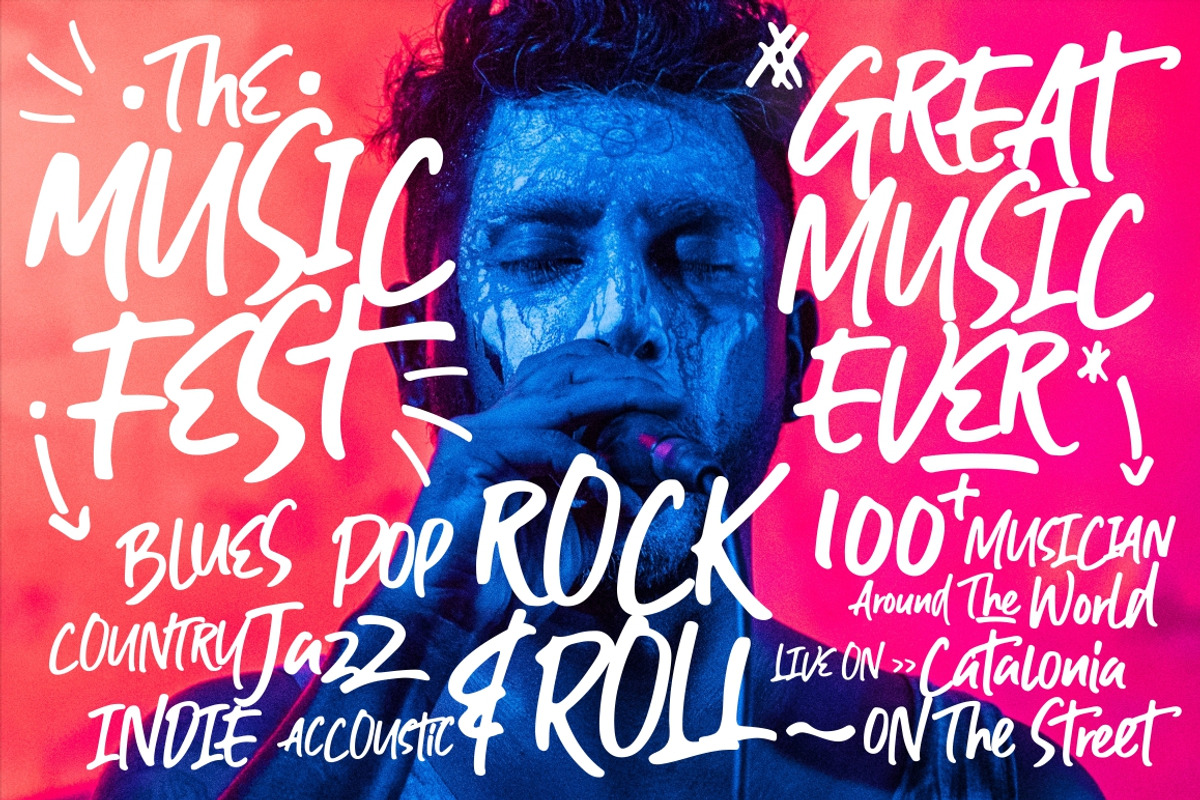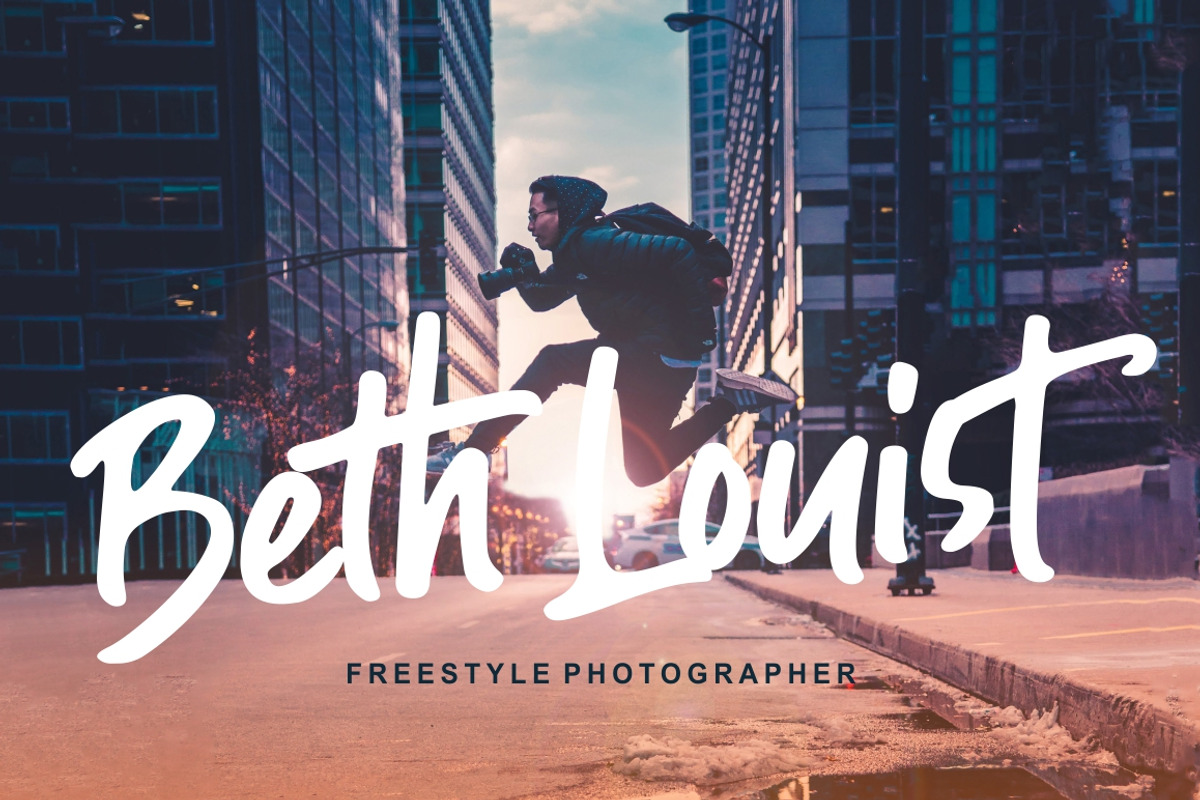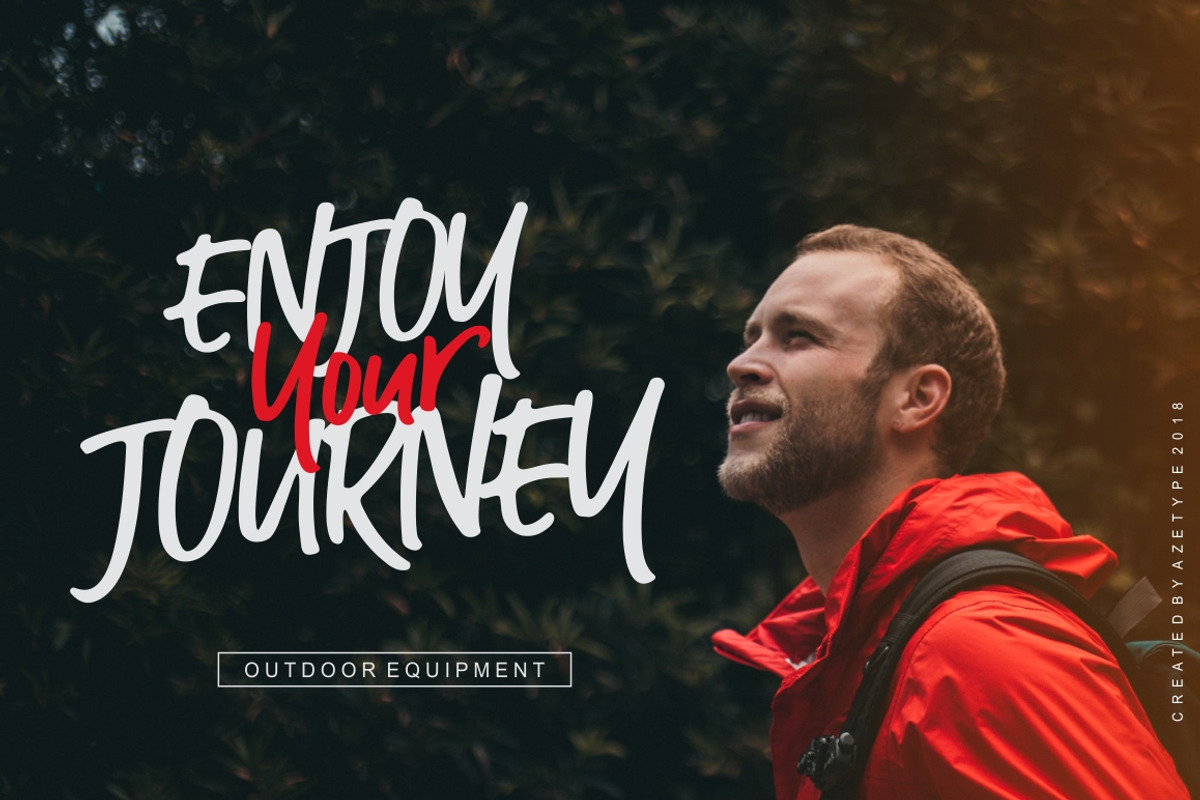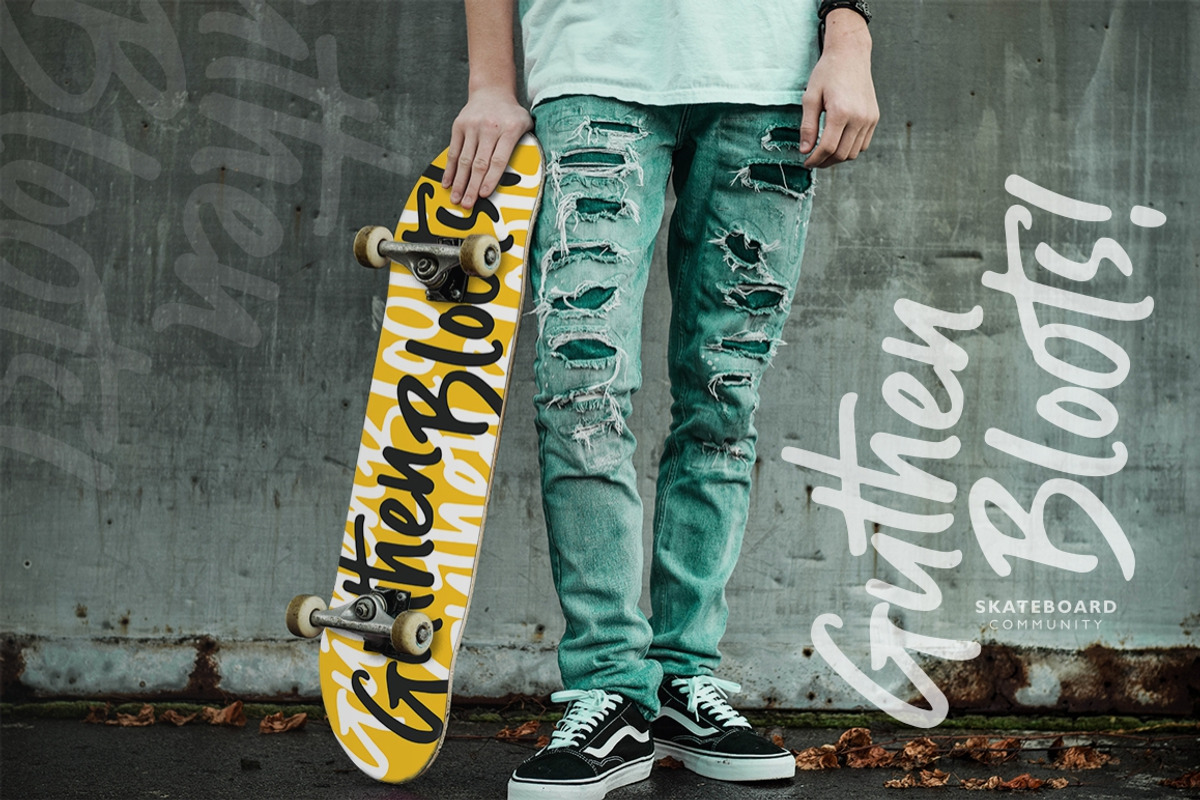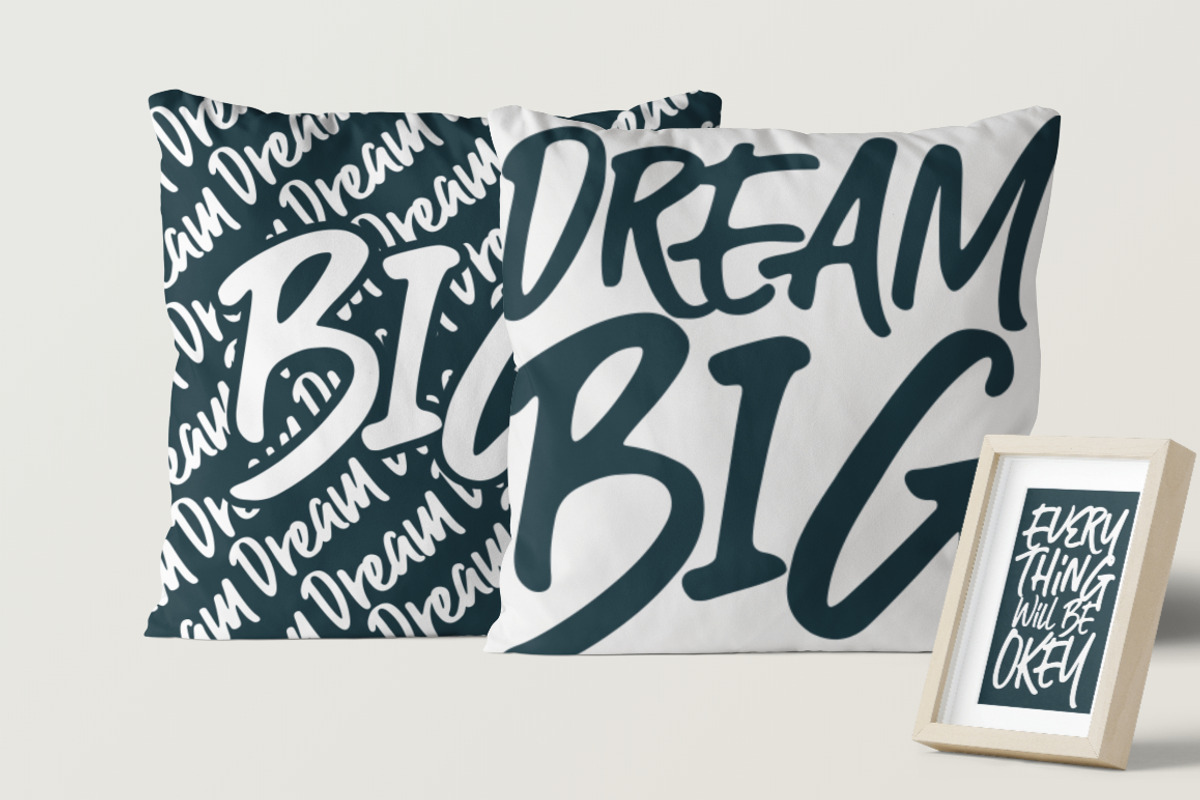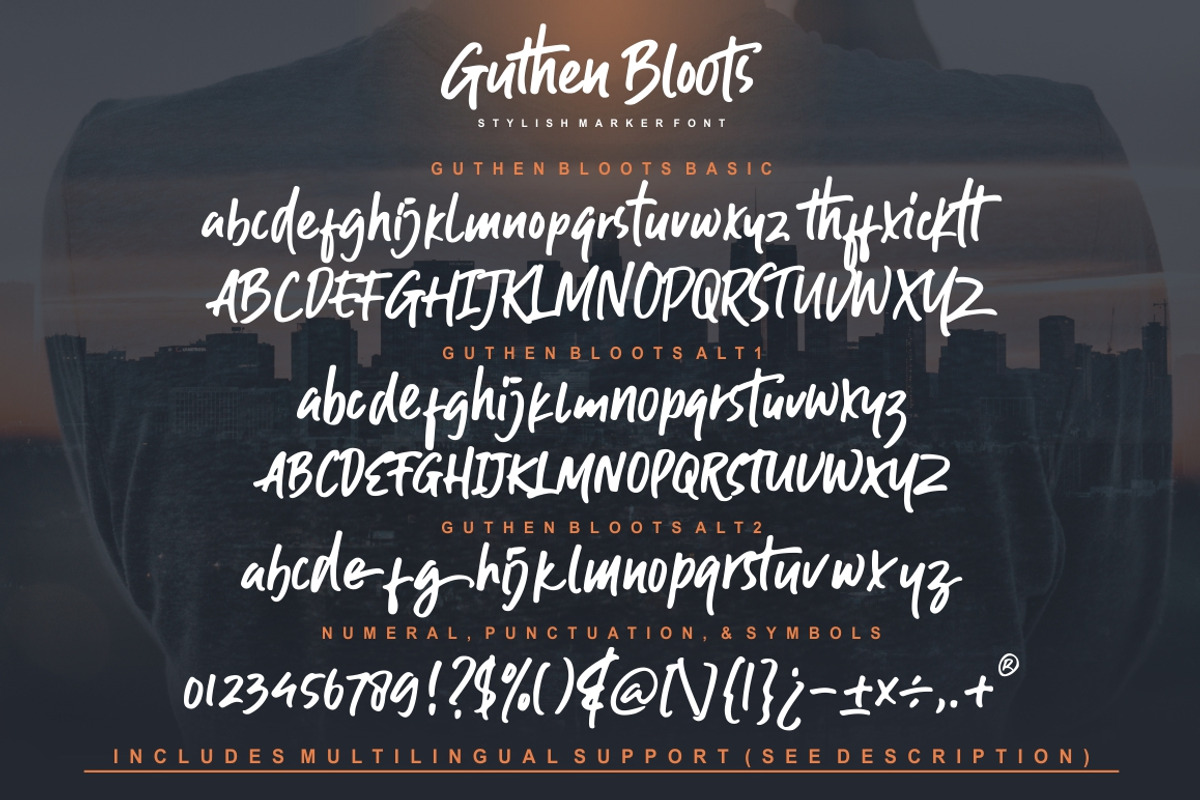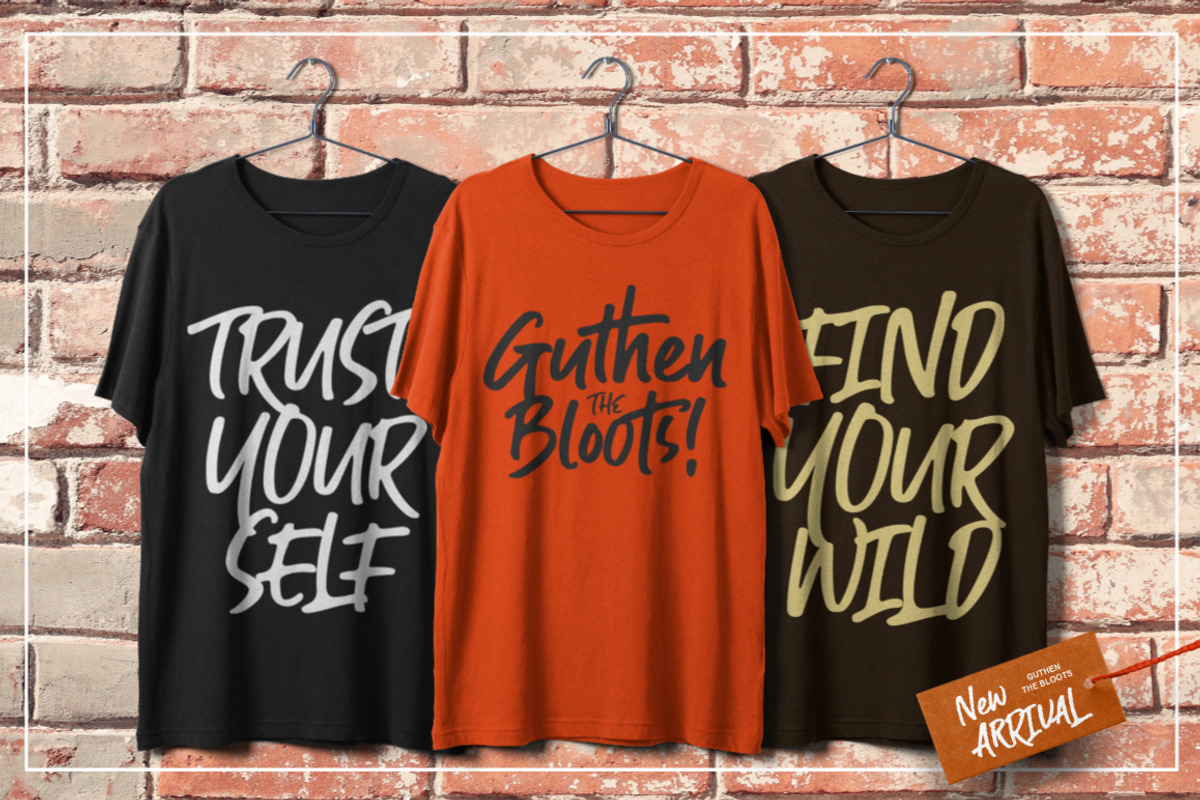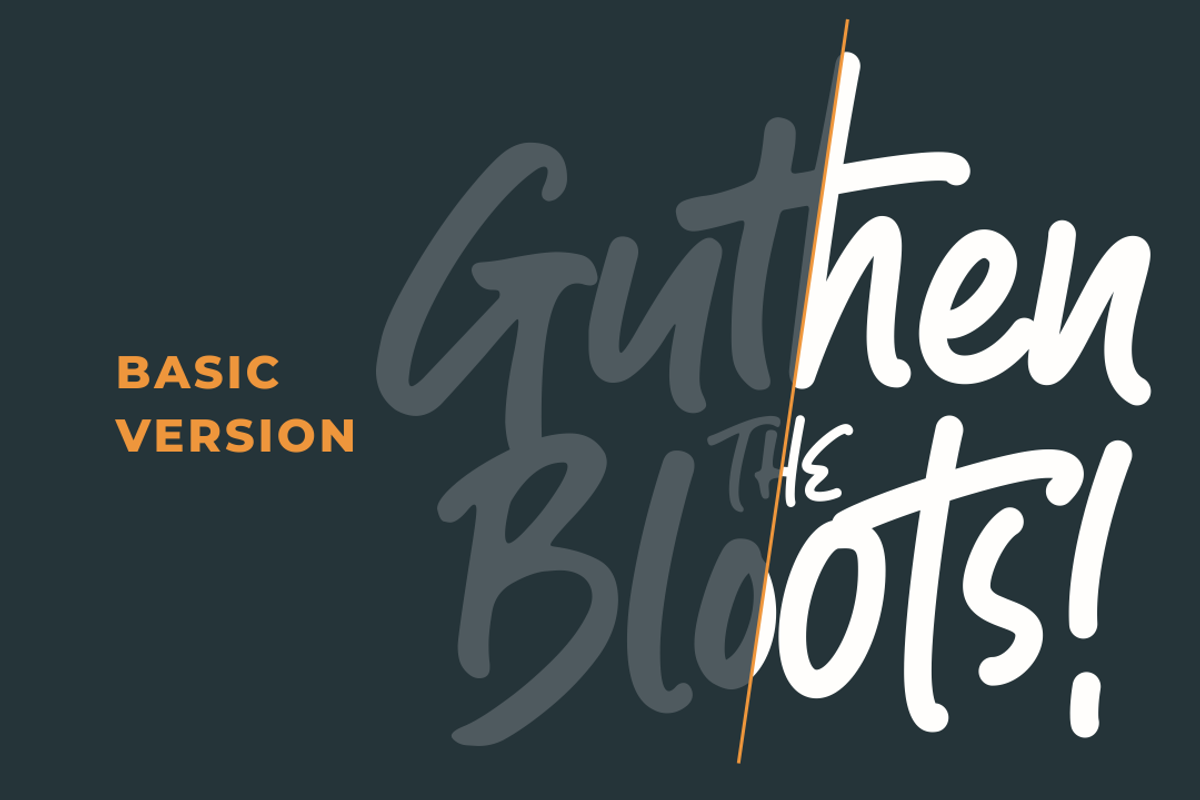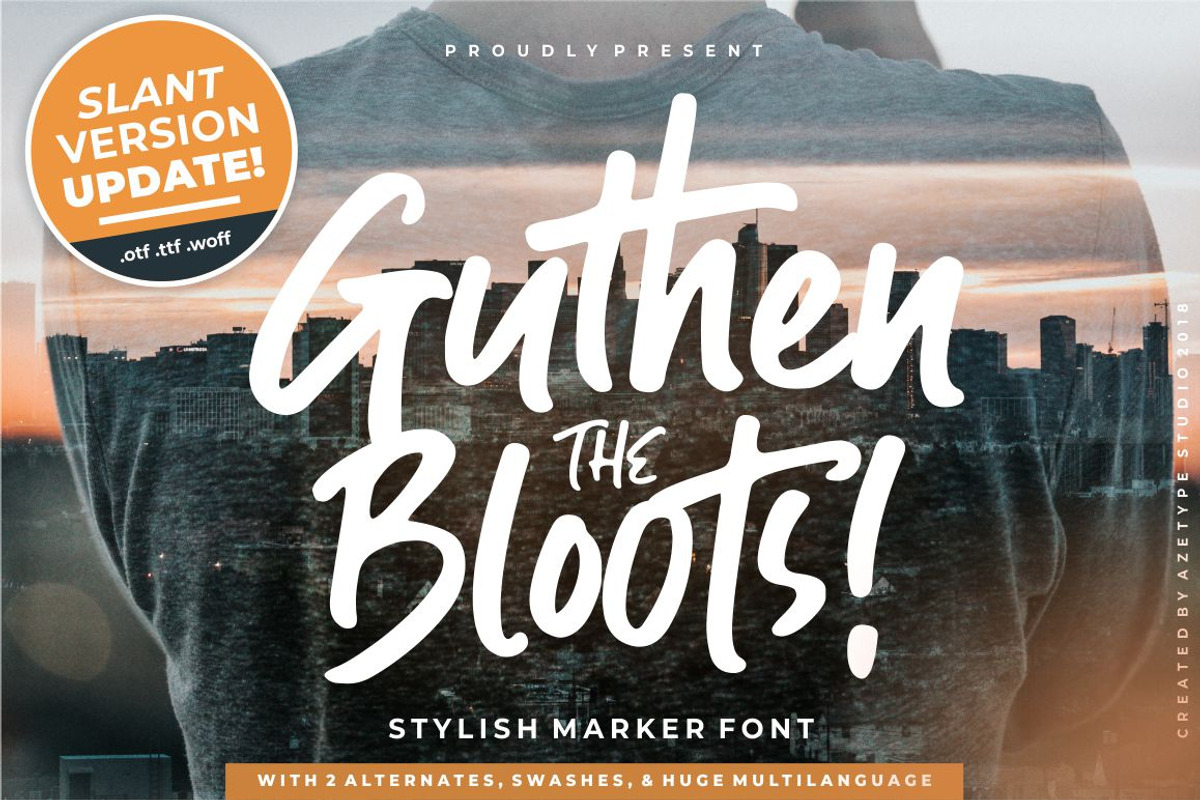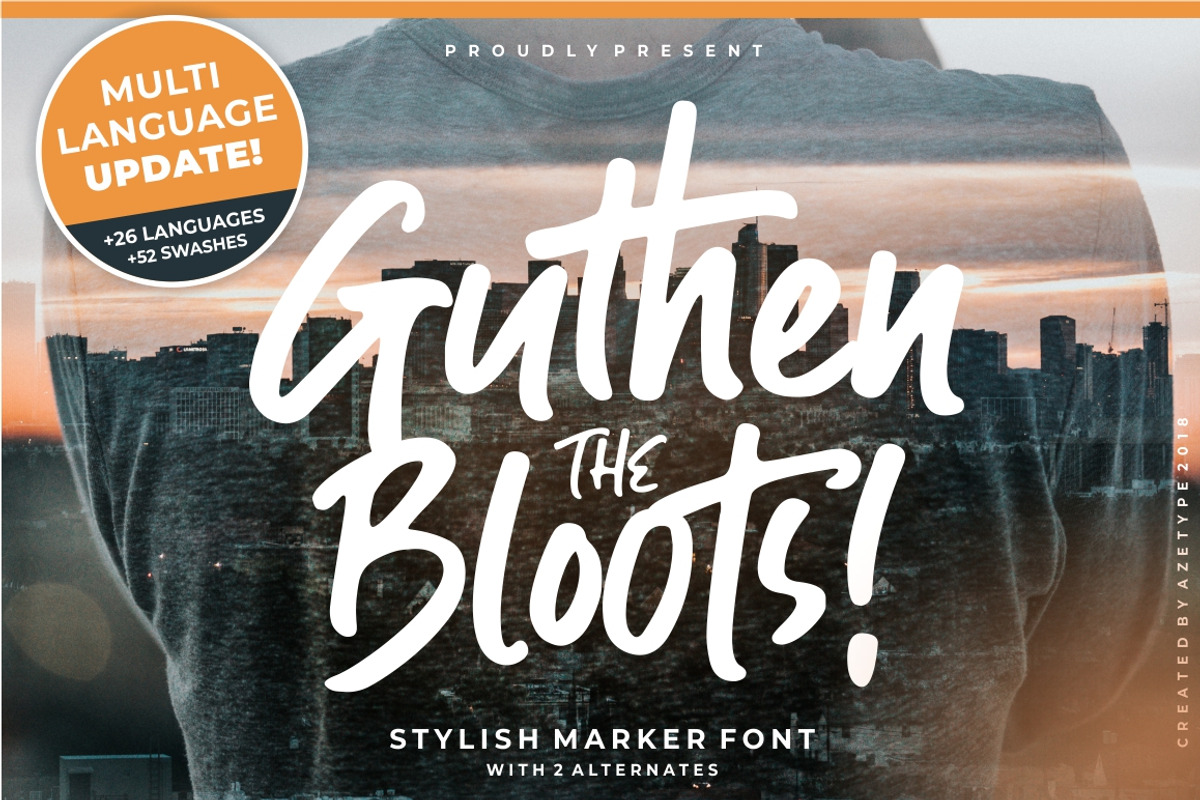
Guthen Bloots
UPDATED: Monoline Version
NEW UPDATE 2 (MARCH 2020): Guthen Bloots Slant Version
Presenting Guthen Bloots! A Smooth Marker Font with two stylish alternates. This font made with the perfect combining of each character. You can type by Mix & Match to get a unique combining. It looks original and can be used for all your project needs. Each glyph has its own uniqueness and when meeting with others will provide dynamic and pleasing proximity. This font can be used at any time and any project. You can see in the presentation picture above, Guthen Bloots looks stylish on design projects.
So, Guthen Bloots can't wait to give its touch to all your design projects such as quotes, poster design, personal branding, promotional materials, logotype, product packaging, etc.
Besides that, Guthen Bloots also has some ligature that gives a surprise when you type certain characters combining. The ligatures are th, tt, ck, ff, and xi.
1. Guthen Bloots Basic • The first version comes with uppercase, lowercase, ligatures, numeral, punctuation, symbols, and Huge Latin Multilingual Support (Afrikaans, Albanian, Catalan, Danish, Dutch, English, French, German, Icelandic, Indonesian, Italian, Malay, Norwegian, Portuguese, Spanisch, Swedish, Zulu, Azeri, Croatian, Czech, Esperanto, Filipino, West Frisian, Hungaria, Irish, Latvian, Lithuanian, Polish, Romanian, Serbian, Bosnian, Slovak, Slovenian, Turkish, Dutch (Netherlands), Estonian, Finnish (Suomi), Francais, Bokmal (Norsk), Welsh (Cymraeg), Somalia, Belarusian (Latin), Moldovan, and Many More).
2. Guthen Bloots Alt1 • The second version comes with uppercase (small caps), stylistic lowercase, and also Huge Multilanguage Support (see the first version). You can use for custom types with a different style. Just switch by mix and match with others. And then enjoy your own style version.
3. Guthen Bloots Alt2 • The third version comes with uppercase (small caps), stylistic lowercase, and also Huge Multilanguage Support (see the first version). You can use for custom types with a different style. Just switch by mix and match with others. And then enjoy your own style version.
4. Guthen Bloots Swash • This version comes with 52 underline swashes. Just type A-Z and a-z to feature all.